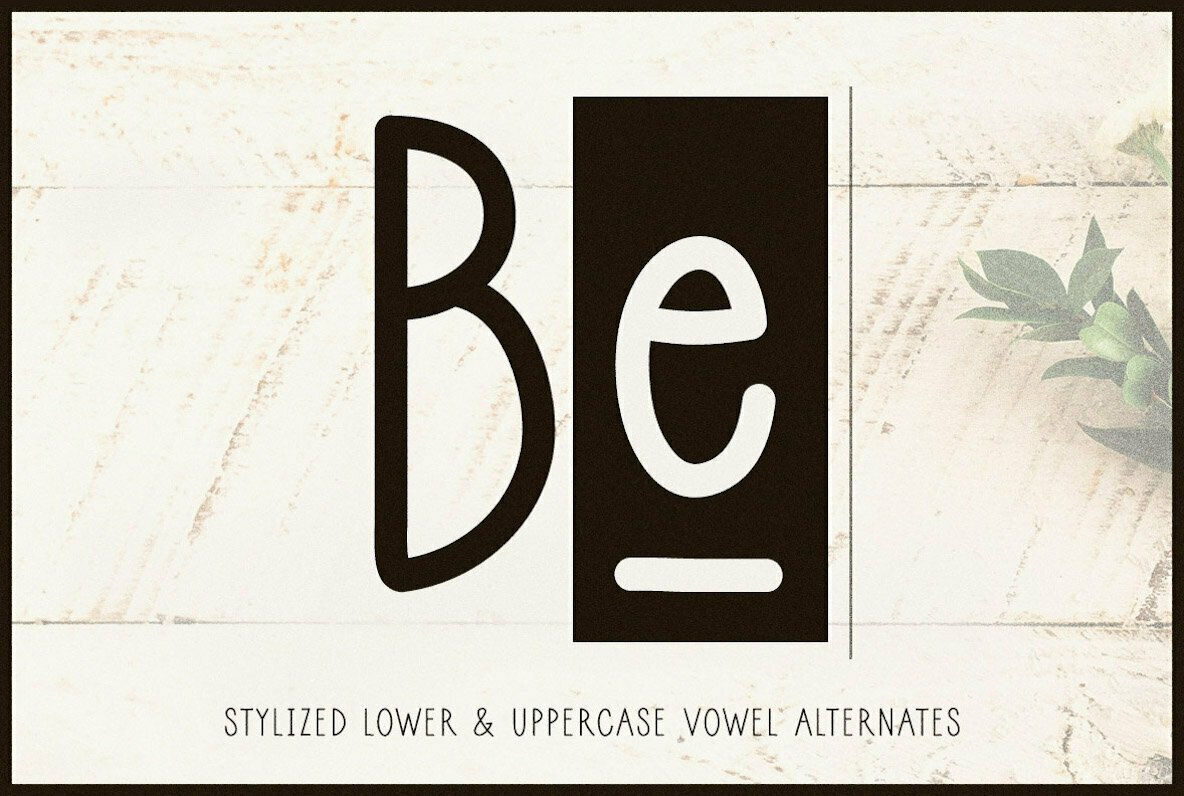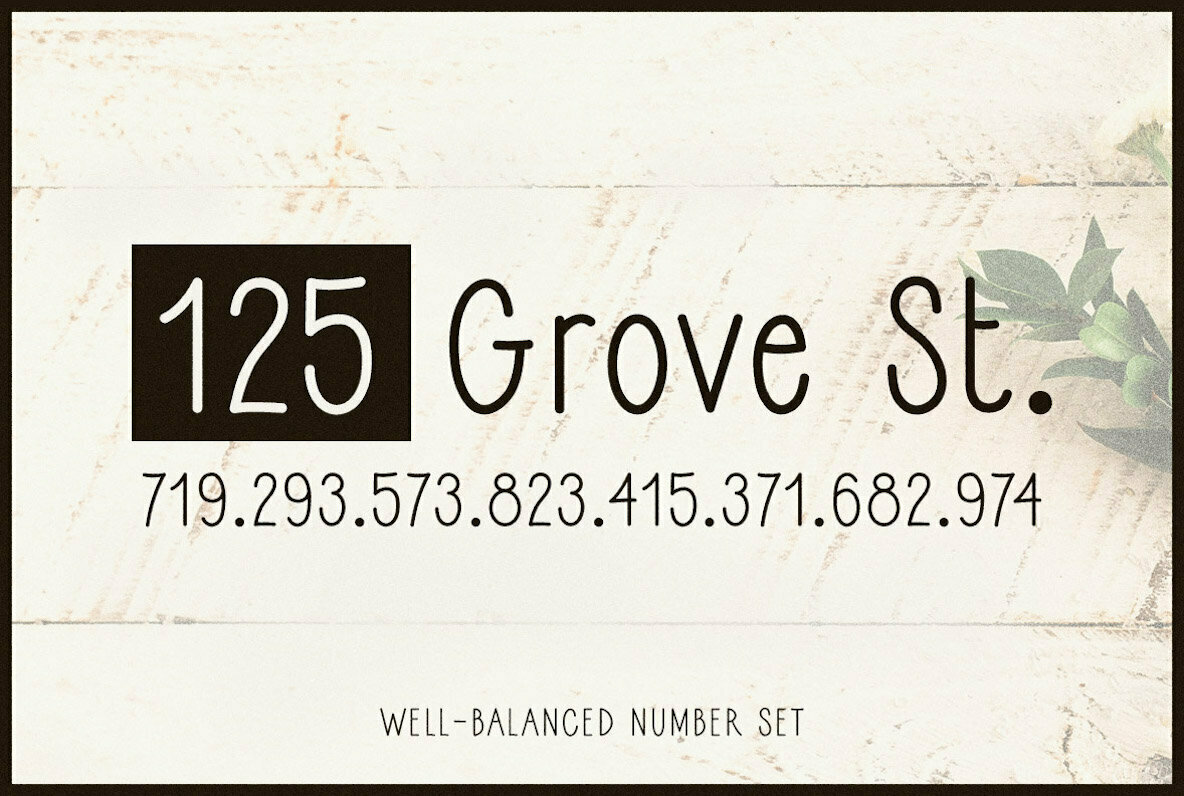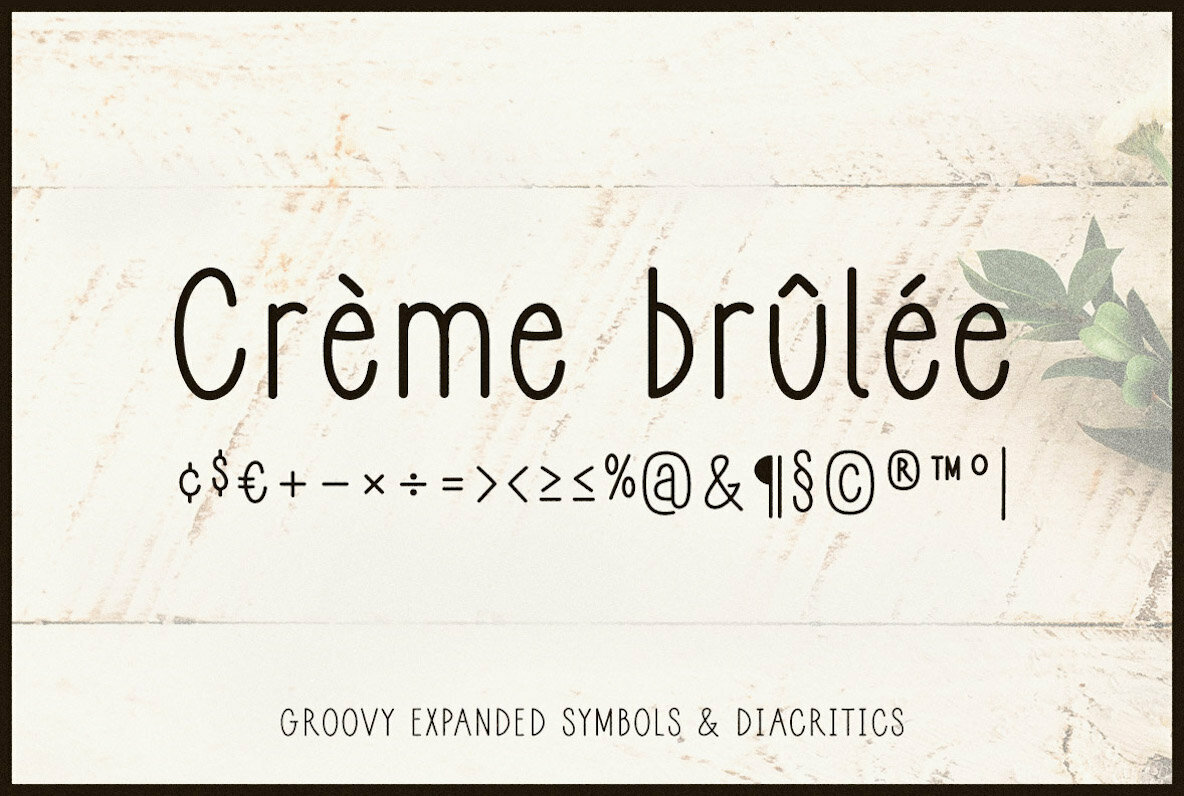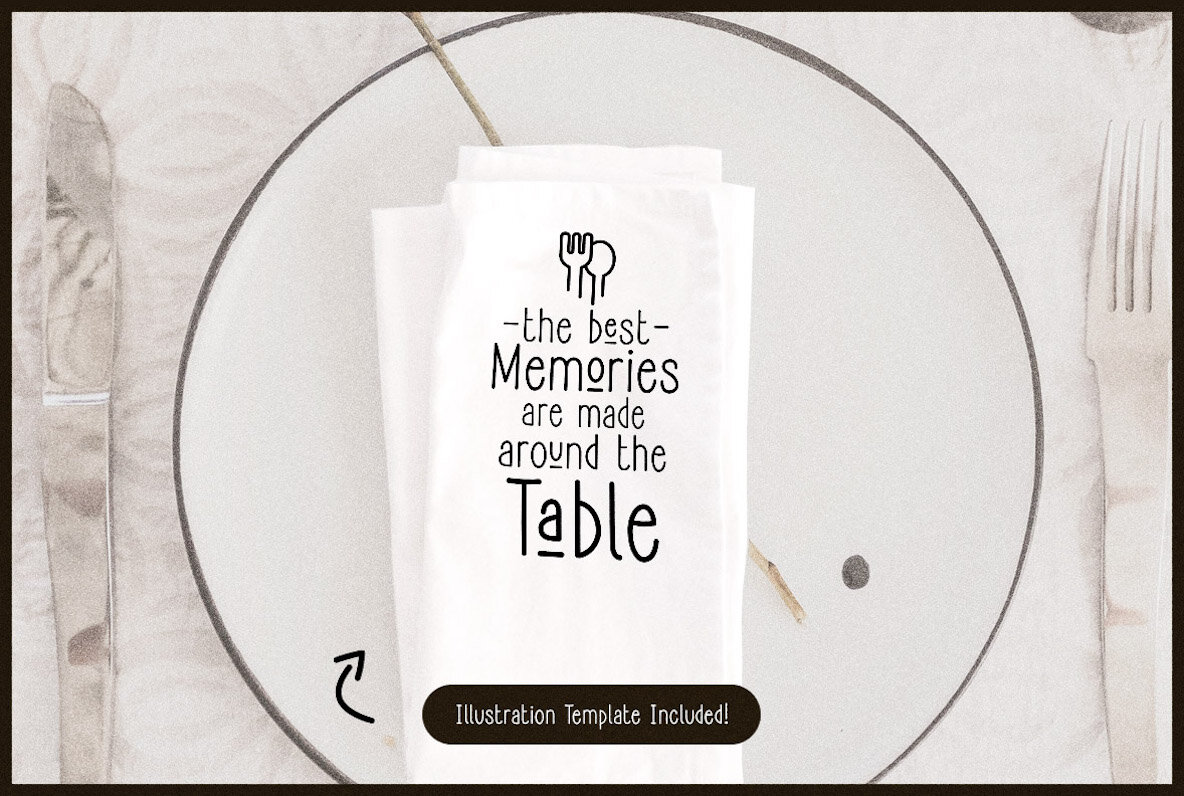
Introducing Cozee, a quirky tall and narrow handwritten font with stylistic alternates! This modern condensed sans serif is fun and skinny - ideal for creating minimalist illustrations, cricut projects, kids books, branding projects, custom home decor, and so much more.
Cozee works great on a variety of projects from big farmhouse sign prints to small website text and is provided in .OTF, .TTF, and .WOFF file formats.